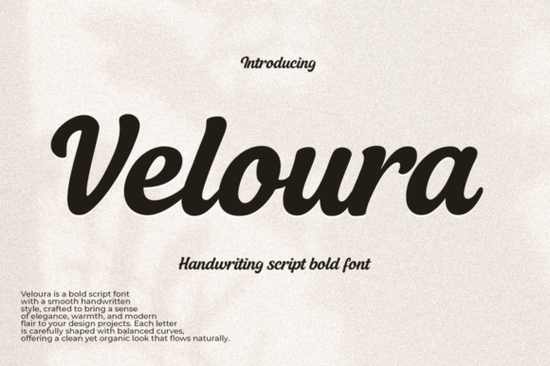
Finding the right handwritten typography for a new project often comes down to how well the letters flow together and whether they match your brand’s personality. Veloura Font answers that need by offering a smooth script style that feels both polished and personal. The balanced curves and steady stroke weight give it a modern elegance that works well across print and digital formats. If you are designing wedding stationery, crafting custom packaging, or building a visual identity for a small shop, this typeface delivers a clean foundation without feeling overly rigid.
Which creative projects actually need a connected script style?
Wedding stationery designers often search for typefaces that balance warmth with professionalism. Because the connected letterforms read clearly even at smaller sizes, they fit naturally onto invitation suites, save-the-date cards, and envelope liners. Print-on-demand sellers also benefit from script typography that scales well on mugs, tote bags, and apparel. The consistent line thickness means the design stays legible whether it is stamped on a canvas tote or printed on glossy cardstock. Crafters who sell custom vinyl decals will appreciate how the smooth curves cut cleanly without leaving awkward gaps. If you enjoy exploring alternatives with a softer aesthetic, you might also look at similar script options for handmade branding or explore how bolder stroke weights affect product labels.
How do the typography features translate to real-world use?
The design relies on a few thoughtful structural choices. First, the balanced proportions keep each character from looking stretched or cramped, which is crucial when you place multiple words in a single line. Second, the organic connections between letters mimic natural pen movement, giving logos and signature lines a more personal touch. You will notice that the stroke weight remains steady throughout the alphabet, so decorative quotes and packaging text maintain a uniform visual rhythm. When working with bold script families, it helps to pair them with a clean sans serif or a lightweight serif. For example, placing a minimalist heading next to subtle pairing typefaces can keep the layout breathable. Small business owners should avoid stacking too many decorative elements together, since the primary focus should always stay on readability.
Try applying the typeface to a single-word headline first, then gradually expand to short phrases. This approach helps you see exactly how the letterforms connect and where adjustments might be needed before committing to a full brand rollout.